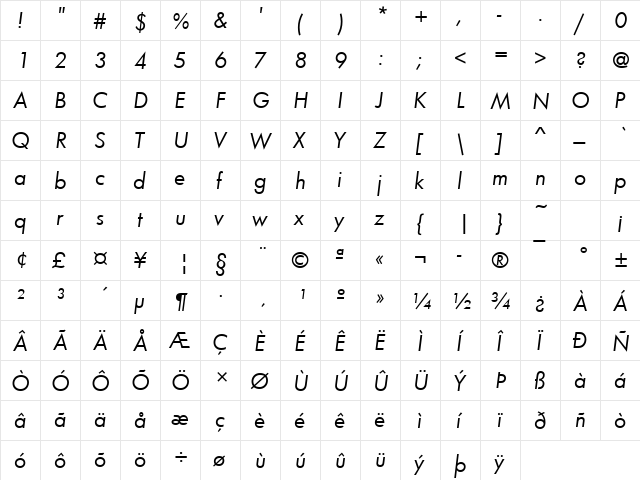
Ma? Italic Font Preview
Ma? Italic
Design Context for Ma񡮡? Typeface
Ma񡮡? offers clean, dependable letterforms without strong stylistic allegiance, making it a practical choice for designers who need flexibility. The dynamic lean of this cut emphasises speed and emphasis in any layout.
Pro Tip: Use Ma񡮡? for emphasis, pull quotes, and subheadings where its slanted energy can add rhythm to the layout.